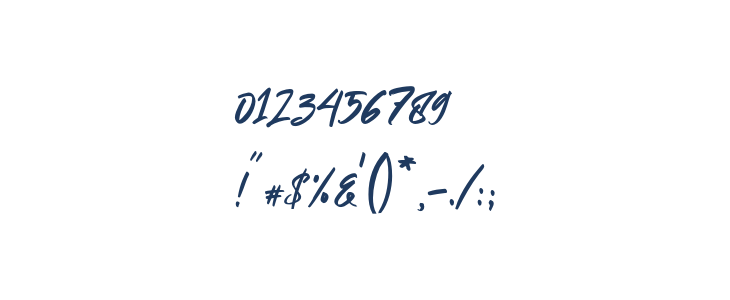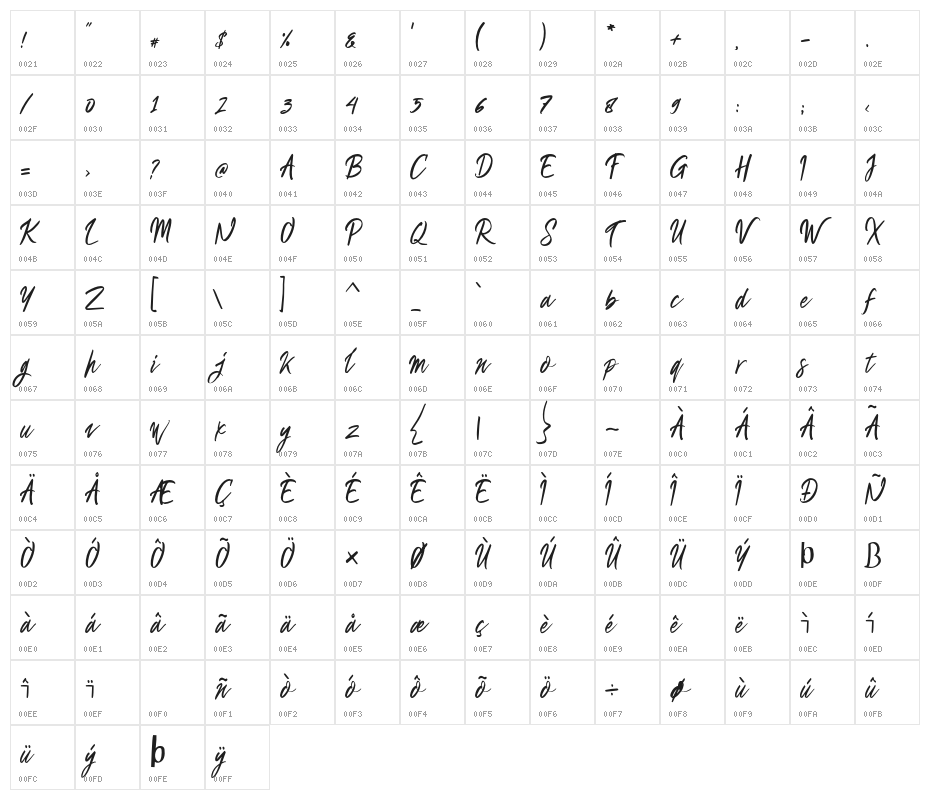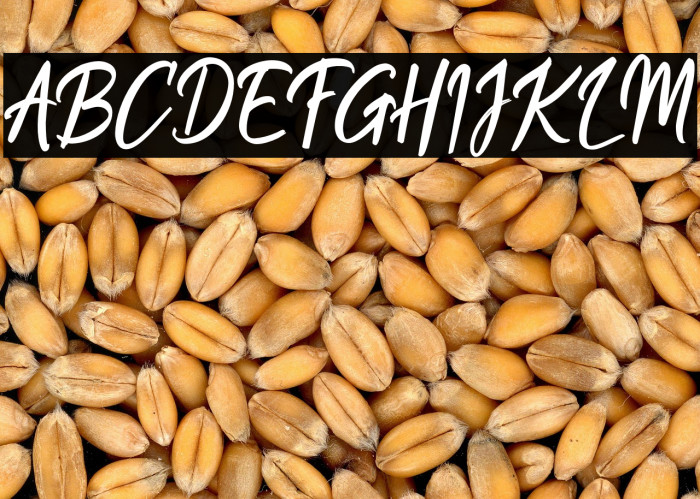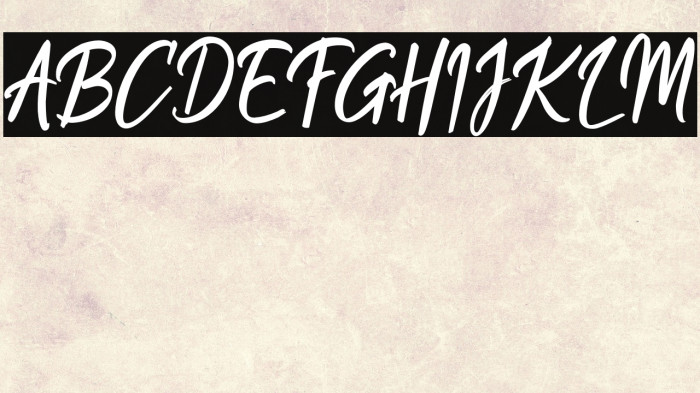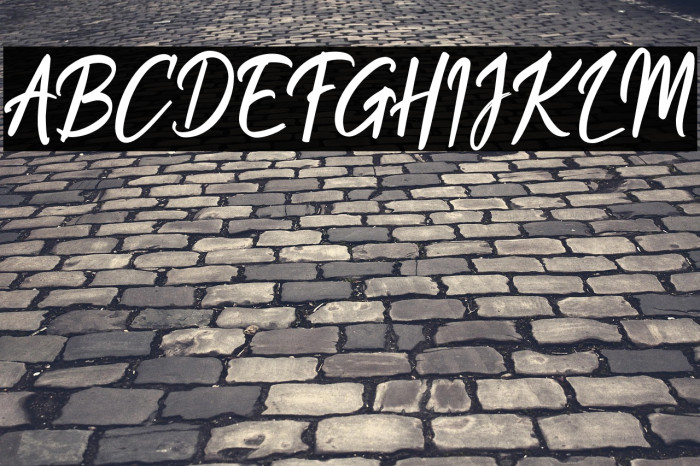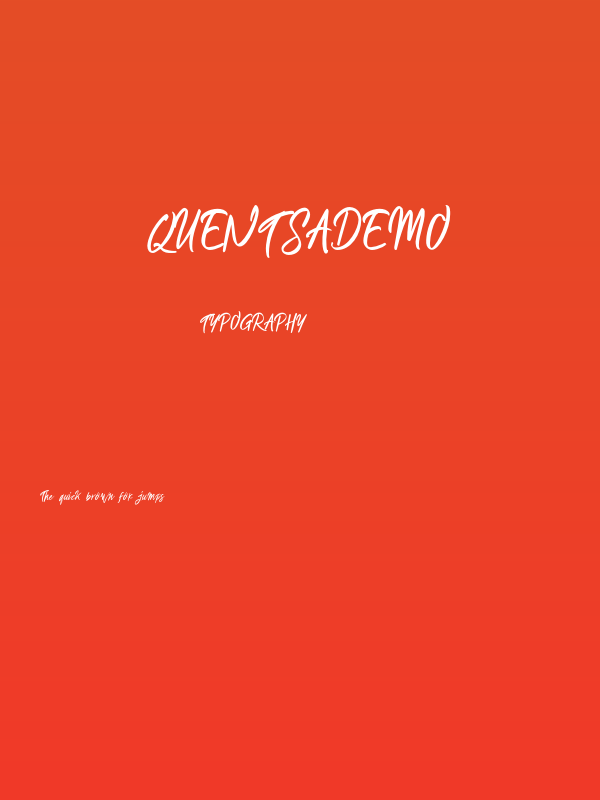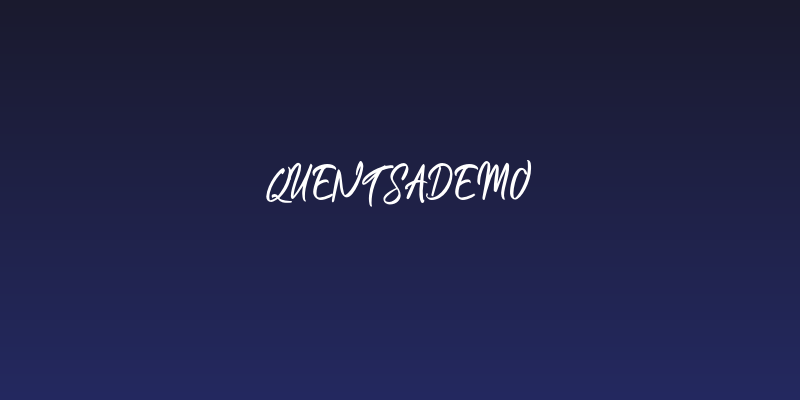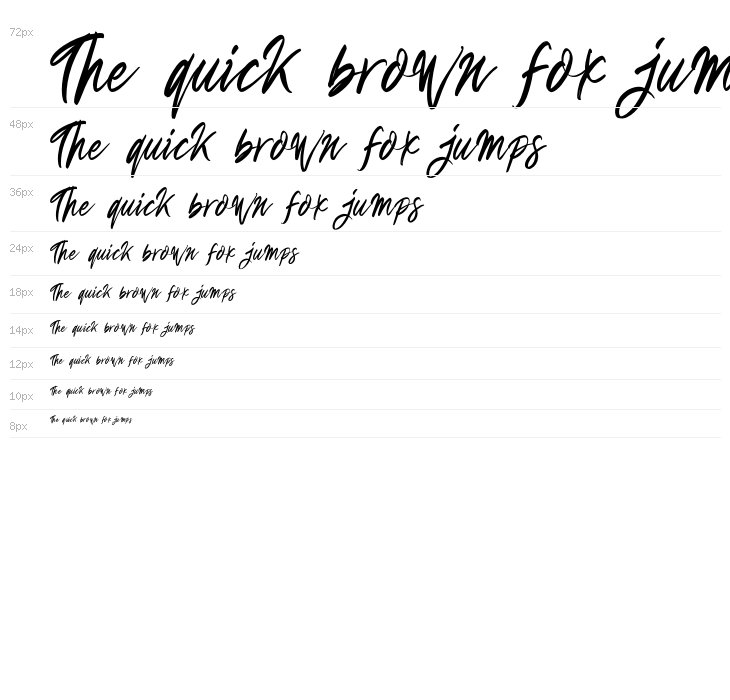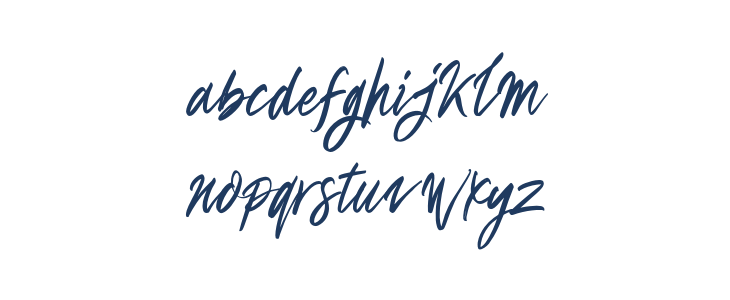
QuentsaDemo Font
QuentsaDemo Description
This font exudes a dynamic and energetic style, characterized by its fluid, cursive script that mimics the natural flow of handwriting. The letters are connected in a seamless manner, giving a sense of continuity and elegance. The strokes vary in thickness, adding a lively and spontaneous feel to the text. This font is particularly effective in conveying a personal and informal tone, making it suitable for creative and artistic projects. The overall appearance is both stylish and approachable, with a modern twist on traditional calligraphy.
| Proposed Projects | Ideal for wedding invitations, greeting cards, personal branding, and artistic projects. |